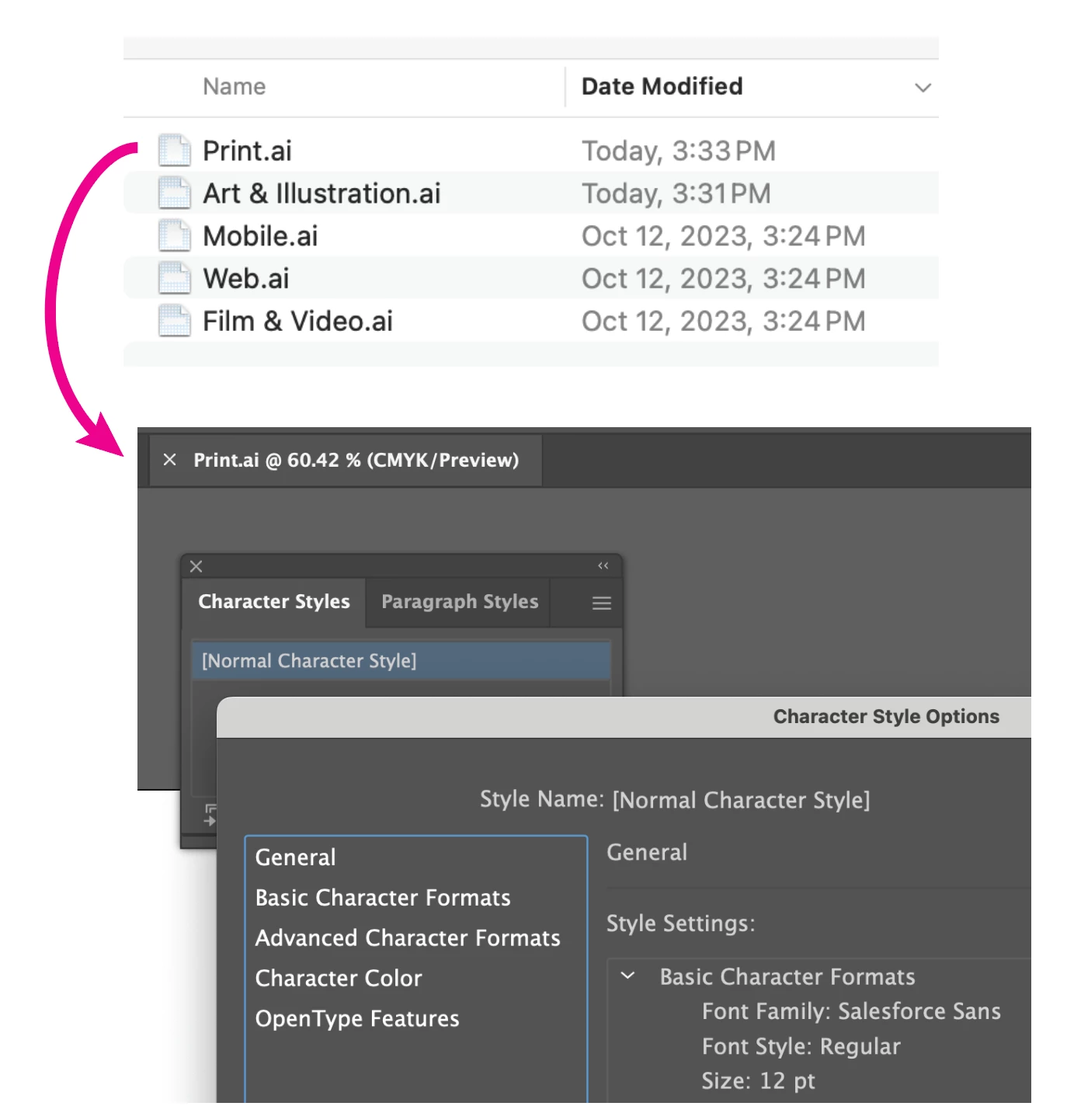
Still no way to change Myriad Pro from being the default font?
What's wrong with Myriad Pro? You should be glad the default isn't Arial!
Arial stinks! It's just ugly, IMHO. It's a Frankenstein's Monster of fonts. Start with Monotype Grotesk, stir in some Akzidenz Grotesk, throw in the metrics of 1957 Helvetica, maybe a few other cues and you'll have this crooked looking sans thing. I've never liked it. And I've grown to really despise it for Arial's rampant misuse on designs of outdoor signs as well as a lot of other cooked up amateur graphics. When I see type artificially distorted (squeezed or stretched) out of its normal, balanced proportions I'm usually seeing Arial used in those examples of "font murder."
Balanced against that, Myriad Pro looks pretty beautiful. The typeface might seem a bit like a Frutiger knock-off, but Myriad has its own identity. I think it's a little more friendly looking than Frutiger (or Frutiger Next). Unlike the crummy default Arial, the Myriad typeface has variable versions. One is bundled into Adobe Illustrator. Another is available to sync at Adobe Fonts.
I had this description saved, maybe this helps:
To change the default font you need to change the New Document Profile that you use to base your new documents on, like Print.ai, Art & Illustration.ai, Web.ai.
Open the profile you want to modify from:
Open the Window > Type > Character Styles panel.
Double click the [Normal Character Style] and change the font in the Basic Character Formats.
Save the file.
You may have to save the file to your desktop first and replace the original after that.
I prefer to have set my Preferences to Use legacy “File New” interface to make it easier to select the presets.
Hi – thanks for this. I saved the file to my desktop and then copied it into the New Document Profiles (after changing the Normal Character Style). Still didn't work. I quit/restarted AI, but no luck. When I double-click the Print.ai file itself, in that New Document Profiles folder, the default font IS my alternate font – but I can't get it to be the default when I just choose New (I chose samples from the Print and Art & Illustration options after choosing New – isn't that what we're hoping should happen?). Maybe I'm just creating a new doc the wrong way? Thanks for any additional feedback you might have.
Edit the Default Character style and save that as a new document profile.
I'm looking to change the default font for good, all documents, all the time. Never have to open a document and getting text in Myriad Pro again.
Document profiles are files that live in your user folder in the application folder. You will have to set that up after installing a new version. And you might need to set that up when Illustrator hangs up itself.
They are basically AI files. Then when creating a new document, you use the profile you have created. You can also change the existing ones. Which might be more along your alley.